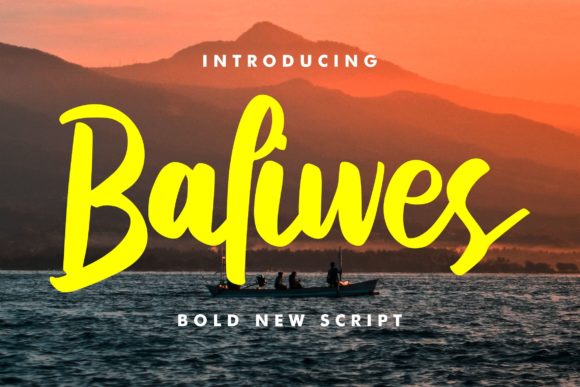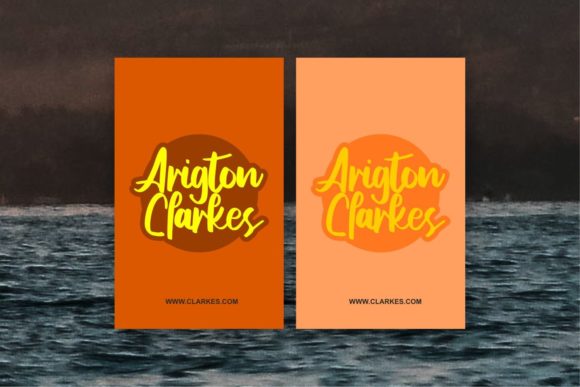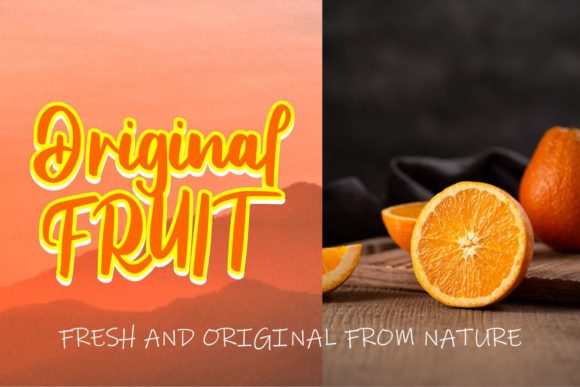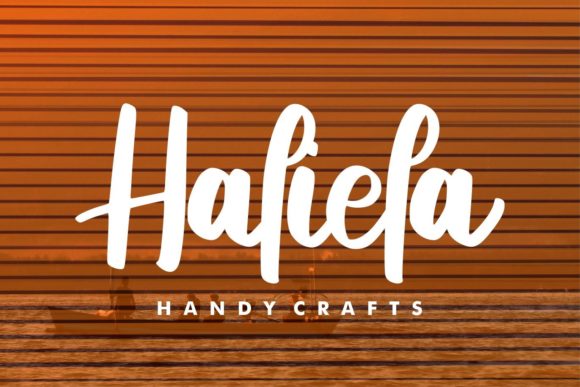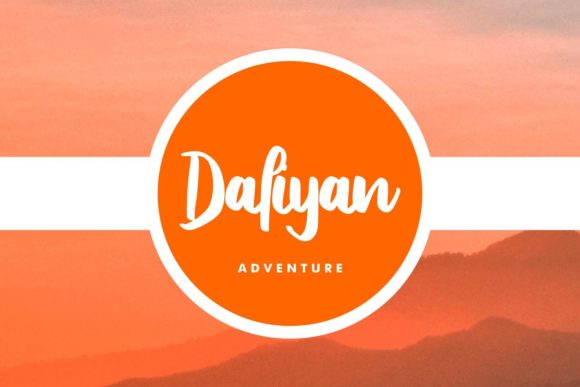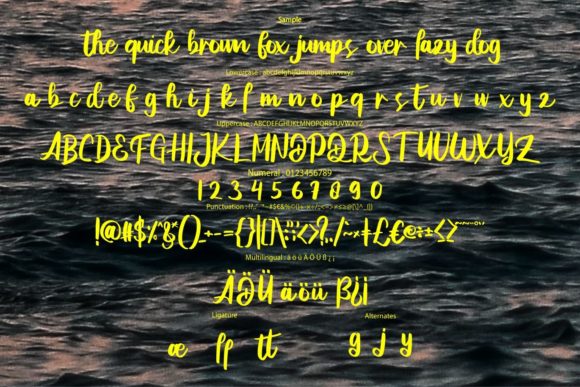
Baliwes Script Font
About Baliwes Script Font
Baliwes Script is a bold and trendy handwritten font. Featuring characters that dance along the baseline, this font will add a luxury spark to any design project that you wish to create!